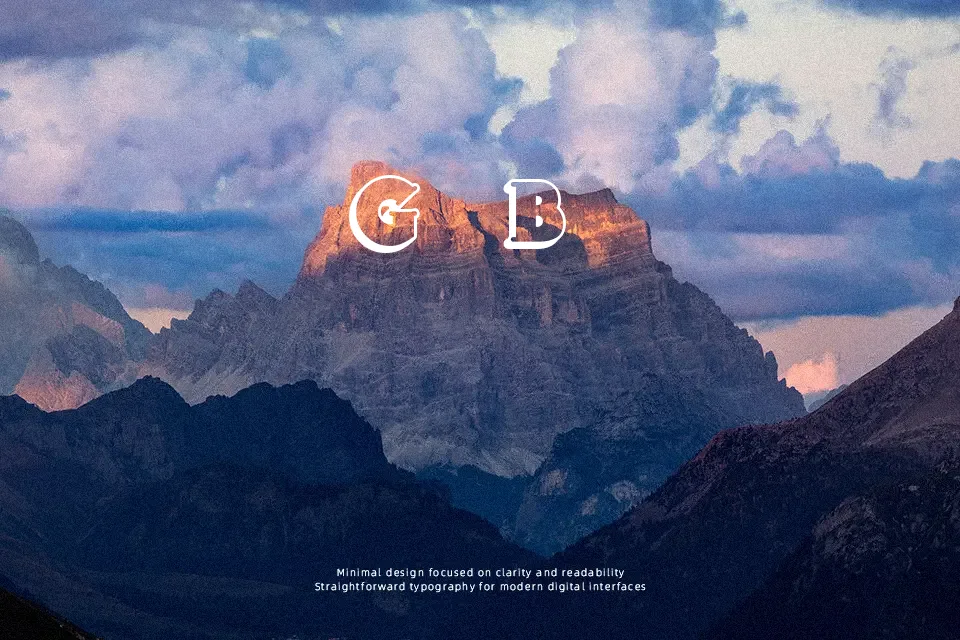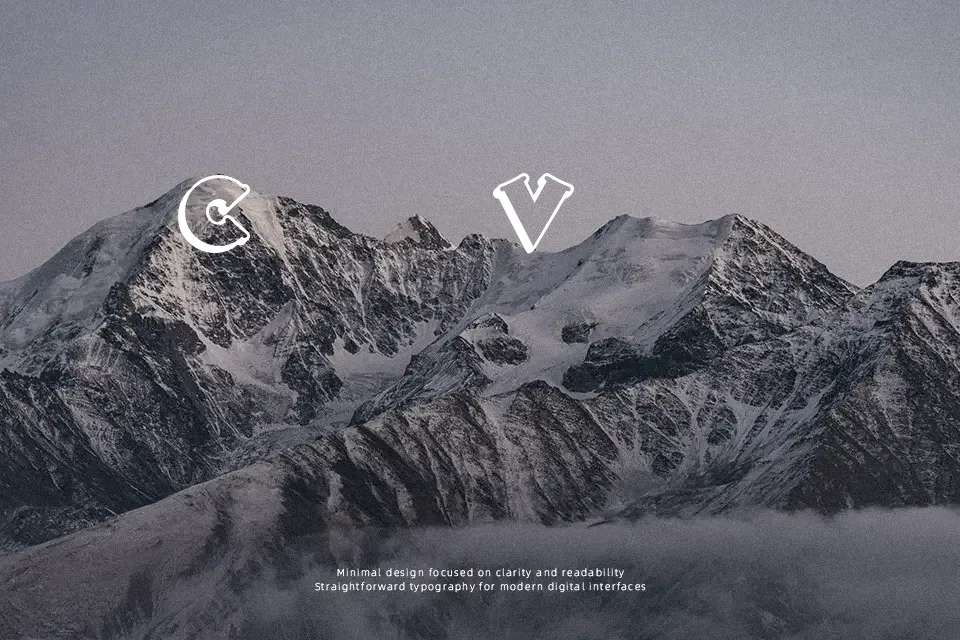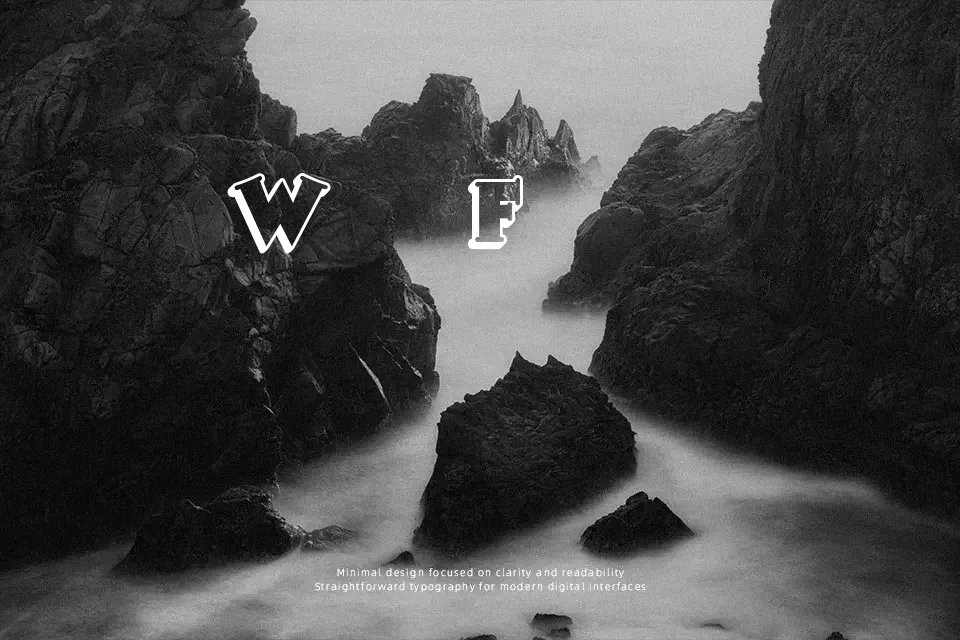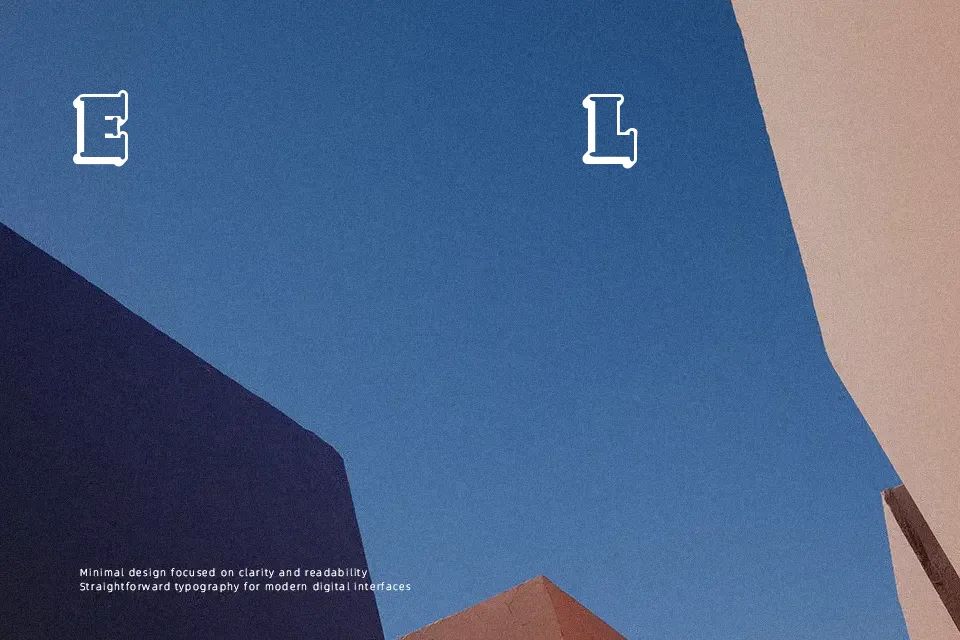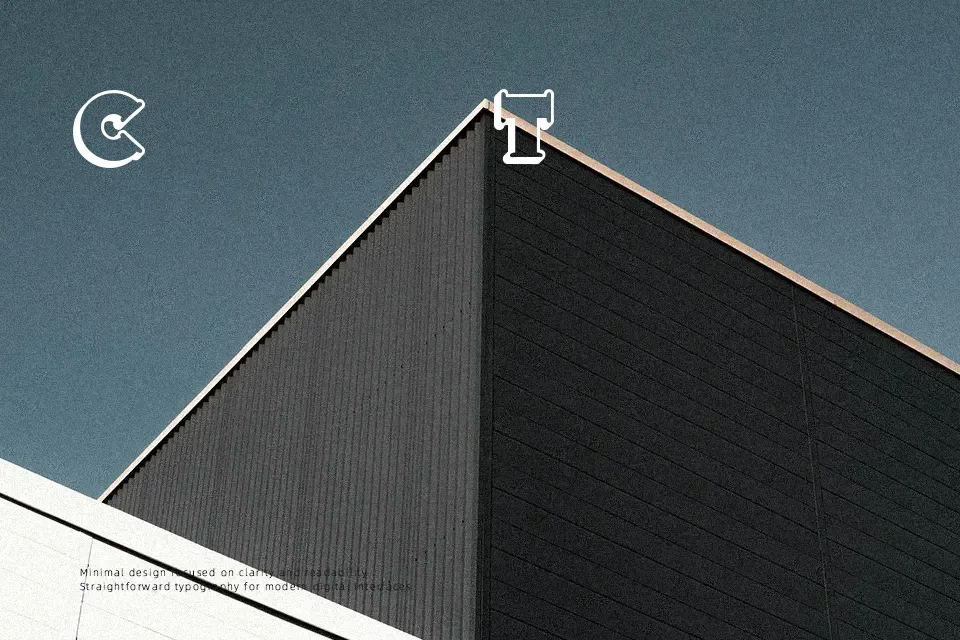
Tooney Noodle Font
Tooney Noodle Font delivers strong visual presence when configured for oversized display headlines that emphasize energetic, comic-inspired aesthetics. The letterforms combine puffed, tubular stems with sharp triangular serifs and hollow interior outlines that suggest sculptural depth. Moderate tracking maintains legible boundaries between neighboring characters, although the wide, bouncy proportions disrupt regular reading cadence. The design operates reliably on amusement park signs, toy packaging boxes, and comic book chapter headers. However, the heavy outer contours obscure fine internal counters at small point sizes, making the typeface impractical for continuous body text, mobile interface labels, and compact technical captions.
Best For: toy packaging boxes, amusement park signage, comic book headlines
Not Ideal For: long paragraph text, mobile interface labels, dense editorial layouts, technical documentation